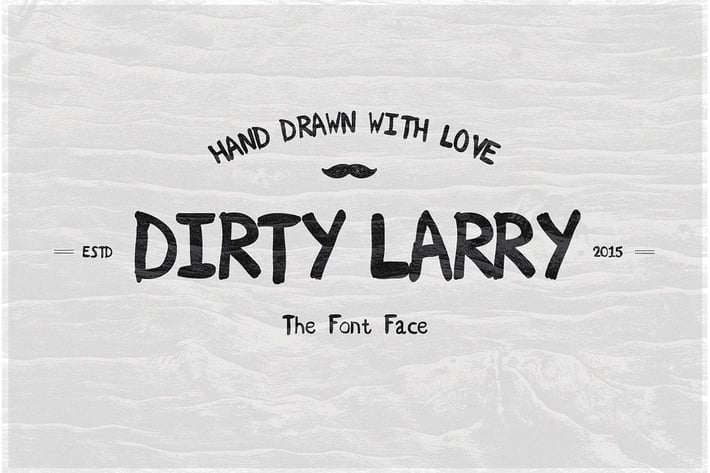
Dirty Larry Font
A very NEW font for 2015! Dirty Larry is a hand drawn / hand written bold display font available for both personal and commercial use.
Including over 90 different hand drawn characters. (See the image above for reference of which are included)